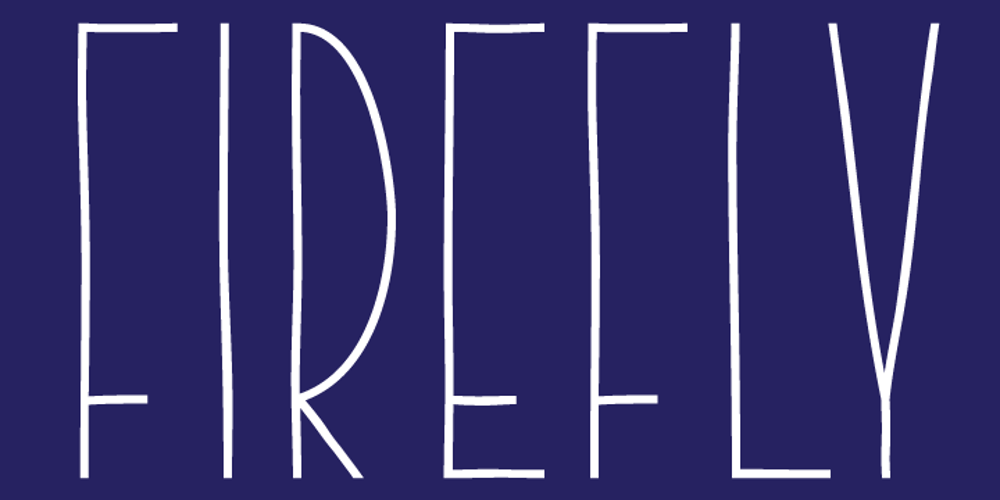
Firefly Font Family was designed by Miranda Hopper and published by Canada Type. Firefly contains 1 styles and family package options. Firefly was designed by Miranda Hopper during her time in Patrick Griffin’s type design class of 2010 at Humber. It is a light, narrow alphabet that works well in casual, leisurely design.